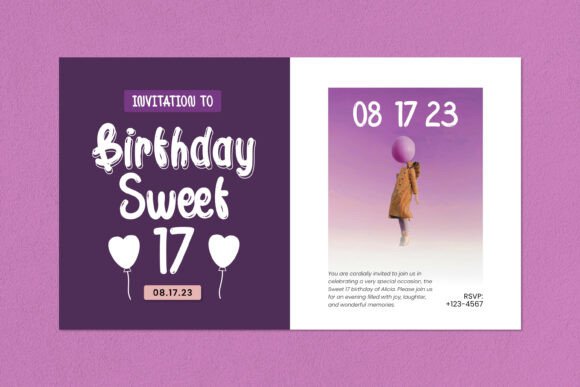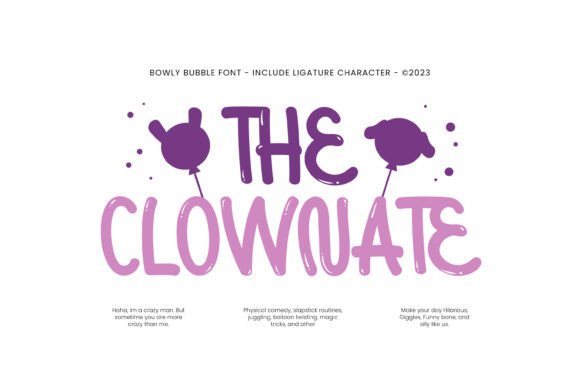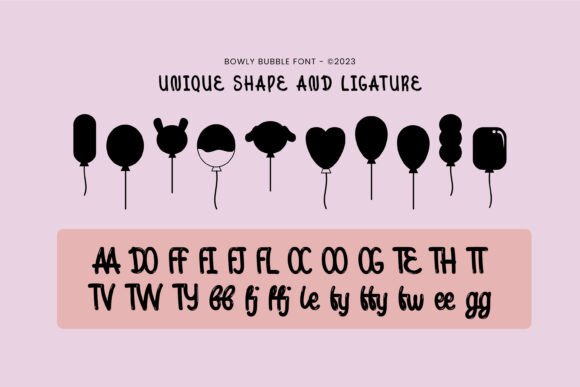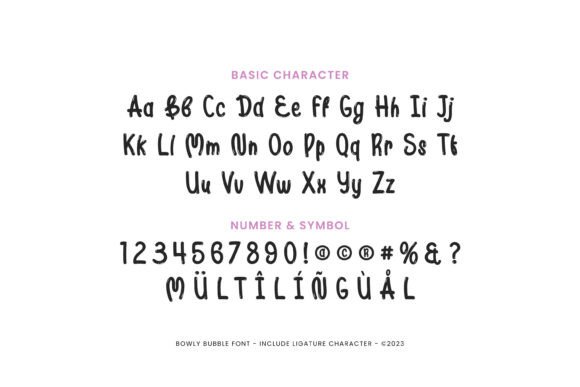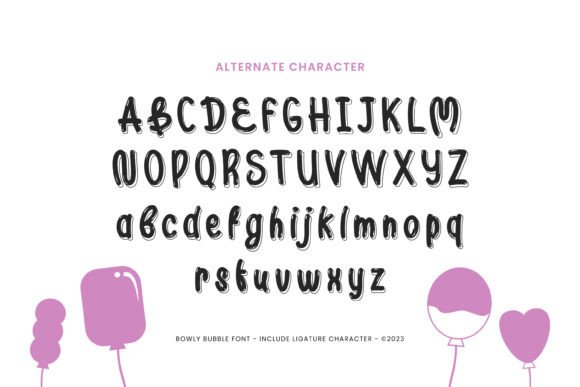
Get Ready to Pop with the Bowly Bubble Font
Who hasn’t had that moment when brainstorming ideas for a project and suddenly, a burst of creativity hits? You envision bright colors, playful patterns, and fonts that radiate joy. That’s exactly what happens when designers stumble upon the Bowly Bubble Font. This bubbly, hand-drawn font is the perfect addition to any design that needs a fun, energetic vibe.
With its rounded strokes and quirky ligatures, the Bowly Bubble Font is designed to make every design feel lively and personal. Whether it’s a children’s project, party invitation, or playful branding, this font is sure to bring a smile to the viewer’s face. For designers looking to add a touch of whimsy to their work, the Bowly Bubble Font is a valuable asset that’s sure to make their designs stand out.
Bowly Bubble Font Key Features
- Character Count: The font includes a wide range of characters, including uppercase and lowercase letters, numbers, and punctuation marks.
- Unique Characteristics: Features a playful, bubble-like design with rounded edges and smooth curves, perfect for creating whimsical and child-friendly content.
Bowly Bubble Font Review
I’ve had the chance to work with the Bowly Bubble Font, and I must say it’s a unique addition to any design project. ✨ The font’s playful, rounded shapes and bubbly feel make it perfect for creating a fun and youthful atmosphere.
- ✨ Versatility: The font can be used for a wide range of projects, from social media graphics to children’s book illustrations.
- ✨ Customization: The font’s OpenType features allow for easy customization of letterforms and spacing.
- ✨ Expressiveness: The font’s playful feel makes it perfect for conveying a sense of fun and whimsy.
- ⚠️ Readability: At smaller sizes, the font can become difficult to read, especially for longer blocks of text.
- ⚠️ Overuse: The font’s playful feel can become overwhelming if used too much, so it’s best to use it in moderation.
- ⚠️ Limited language support: The font may not be compatible with all languages, so be sure to test it thoroughly before using it for a large-scale project.
Overall, I think the Bowly Bubble Font is a great addition to any designer’s toolkit. With its playful feel and versatility, it’s perfect for creating fun and engaging designs. Just be sure to use it wisely and consider its limitations.
Getting the Most Out of Bowly Bubble Font
To get the most out of Bowly Bubble Font, try the following tips:
- Use it for playful and creative projects.
- Combine it with bold and bright colors for maximum impact.
Bowly Bubble Font is perfect for:
- Children’s book illustrations.
- Party invitations and decorations.
- Social media graphics and ads.